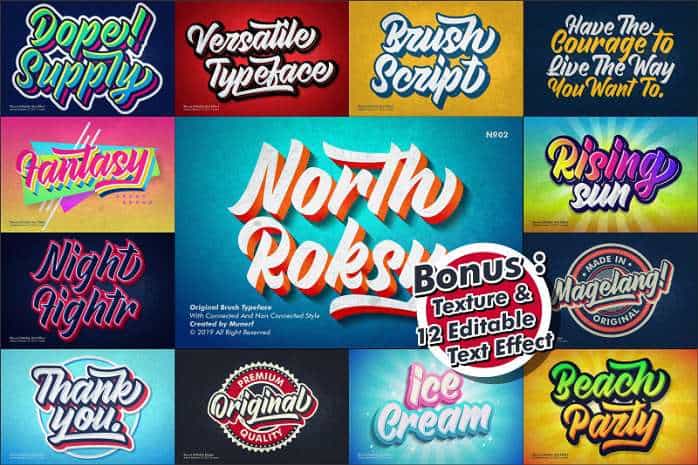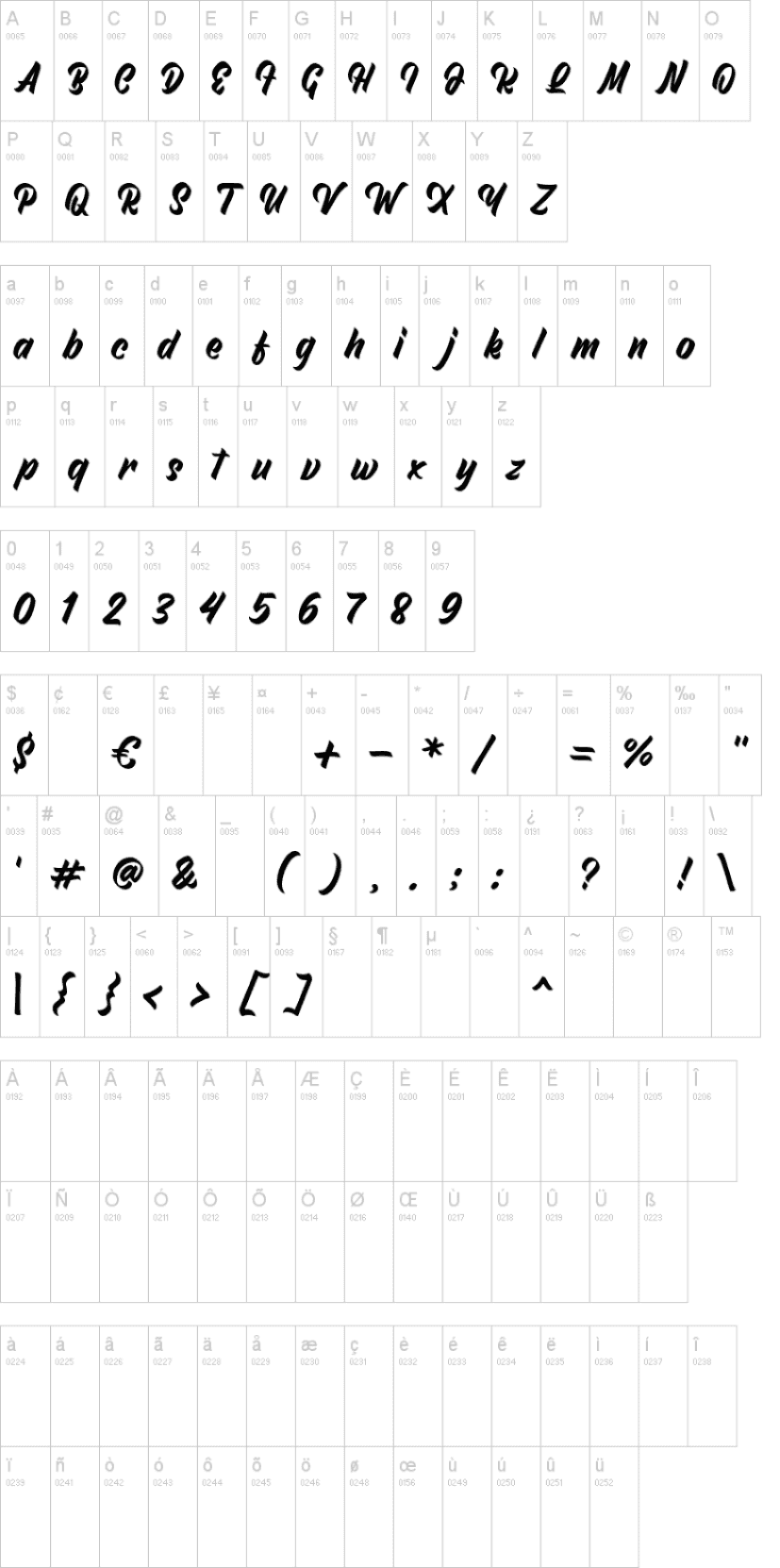
Discover North Roksy Font, part of the Brush collection—a versatile and unique font perfect for adding a personal touch to your projects. Download it for free and enjoy crafting designs with style, from invitations to social media posts. This font is available exclusively for personal use, giving you the freedom to create without limits. Unlock your creativity with North Roksy Font today!
North Roksy by Munerf is a high quality brush font that is offered as a free download and for personal use. The free edition gives all the letters as both upper and lower case and some special characters.